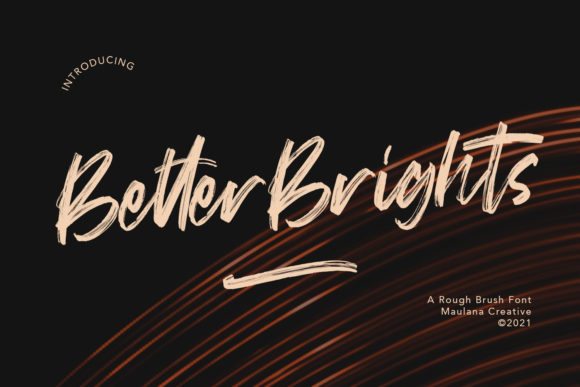
The Perfect Personal Touch: A Deep Dive into Better Brights Font
I’ll never forget the time I was working on a wedding invitation project, and my client asked for a font that was ” elegant, yet playful” and would make their special day feel truly unique. I scoured the internet, tried out countless fonts, but nothing seemed quite right. That was until I stumbled upon Better Brights Font. ✨
This cool, brushed handwritten font has been a game-changer for my designs, and I’m excited to share its beauty with you. Better Brights looks stunning on a variety of designs requiring a personalized style, such as wedding invitations, thank you cards, weddings, greeting cards, logos, and more.
An Honest Review of Better Brights Font
- ✨ Unique, hand-crafted feel that adds a personal touch to any design
- ✅ Beautifully suited for wedding invitations, greeting cards, and other special occasions
- ✅ Easy to read, even in smaller sizes
- ✅ Works well with both digital and print designs
While Better Brights Font is an amazing addition to any design project, there are a few things to keep in mind: 🤔
- ⚠️ Some characters may appear a bit inconsistent in size or shape, which can actually add to its charm but might not be suitable for all designs
- ⚠️ Limited availability of stylistic alternates, but what it offers is still impressive
The Story Behind Better Brights Font
Better Brights Font was created with the intention of bringing a touch of warmth and personality to designs. Its designer aimed to craft a font that felt both elegant and approachable, perfect for those special moments and personal projects. While the exact story behind its creation might be shrouded in mystery, its impact on the design community is clear.
Q: What makes Better Brights Font unique?
A: Its hand-crafted, brushed appearance gives it a unique, personal feel that’s hard to replicate with standard fonts.
Q: Does Better Brights support OpenType features?
A: Yes, it does, offering a range of ligatures, glyphs, and stylistic alternates to enhance your designs.
Q: Is Better Brights suitable for body text?
A: While it’s primarily designed for headings and short texts, its readability makes it versatile for various uses.